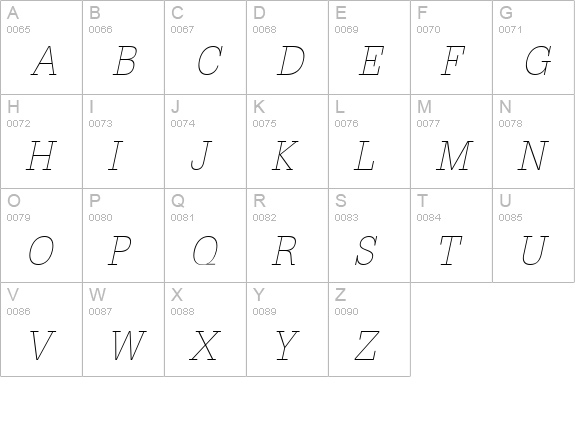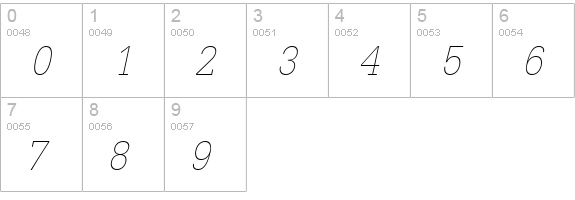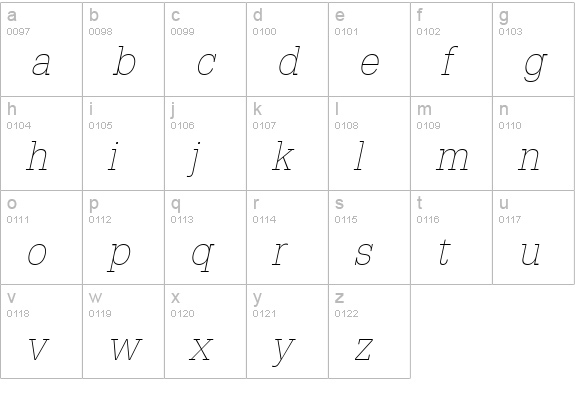
Installation Light SSi Thin Italic is a refined, elegant, italic variant in the Installation typeface family \xE2\x80\x94 well suited to elegant body text, refined sub-headings, and luxury branding.
Installation Light SSi Thin Italic is a visually captivating and elegant font that exudes a sense of sophistication and modernity. Its sleek and slender design, coupled with the subtle slant of the italic style, adds a touch of uniqueness to any typographic project. Each letter is meticulously crafted to create a harmonious balance between thin strokes and graceful curves, resulting in a font that is both legible and visually striking. This font is perfect for a wide range of applications, including editorial design, branding, advertisements, and more. Whether you're looking to create eye-catching headlines or add a touch of elegance to your body text, Installation Light SSi Thin Italic is sure to captivate your audience and leave a lasting impression. The best part is that Installation Light SSi Thin Italic is available for free download at FontsMarket.com. This means that you can easily access and utilize this stunning font without any cost. Simply visit FontsMarket.com, search for Installation Light SSi Thin Italic, and unleash your creativity with this incredible typeface. Don't miss out on this amazing opportunity to enhance your design projects with the beauty and versatility of Installation Light SSi Thin Italic. Download it for free today and elevate your typography to new heights.